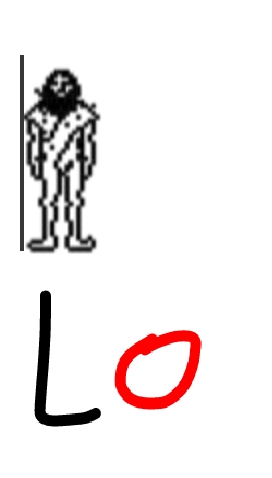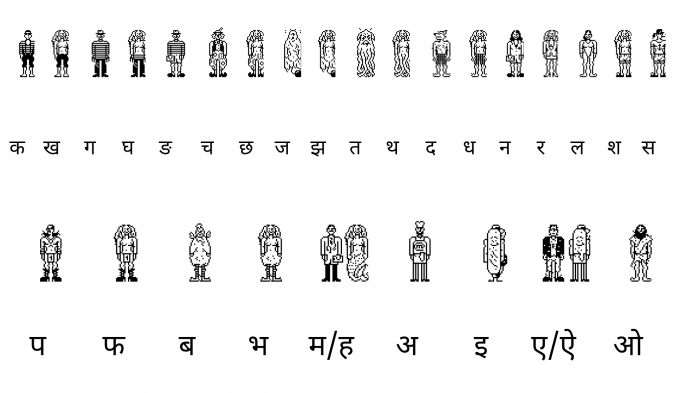
• Don't worry, this is not a font, this is a picture game. Please, type any uppercase character in the user input window from A to T, then the same character but in the lowercase and then press the space before repeat the operation with other character that you want: Aa (space) Bb (space) Cc (space)... And... Surprise! Here you are my crazy pixel friends. After this, you can mix the characters and play a little bit more creating some funny "monsters": Bd (space) Hp (space) Pt... There are 400 variations to try. Enjoy them!
Don't worry, this is not a font, this is a picture game. Please, type any uppercase character in the user input window from A to T, then the same character but in the lowercase and then press the space before repeat the operation with other character that you want: Aa (space) Bb (space) Cc (space)... And.. Surprise! Here you are my crazy pixel friends. After this, you can mix the characters and play a little bit more creating some funny "monsters": Bd (space) Hp (space) Pt... There are 400 variations to try. Enjoy them!
Here's 2 of my own creatures: Fi and If
Great Great Great! It reminds me of a drawing toy I had as a child, called the "Mighty Men and Monster Maker." It had interchangeable plastic templates for head, body, and legs that could be used to make a variety of superheroes/creatures. This fontstruction brings back that joy! Thanks, elmoyenique!
All 400 combinations are below; To see them all in one space, simply copy the text below and paste in into the previewer:
@Galo: Thanks! @BWM: OK, the complete set. Which of them do you prefer?
all combinations
At least Fi and If
'Hl' is a naked lady
Ff = Cactus
You can also combine multiple tops or multiple bottoms.
I took the first two letters of my first, middle, and last names (Bryson James Stohr), and these are the results.
Every Devanagari Letter (i could do) in the picture game
(type this in)
Top Row: Kk Kh Gg Gh Ng Cc Ch Jj Jh Tt Th Dd Dh Nn Rr Ll Sh Ss
Bottom row: Pp Ph Bb Bh Mm Hh Aa Ii Ee Ai Oo
Idea for Uu
dont worry i did it!
Hi is nothing
I made Hl